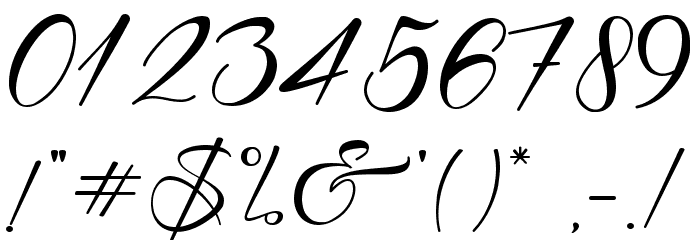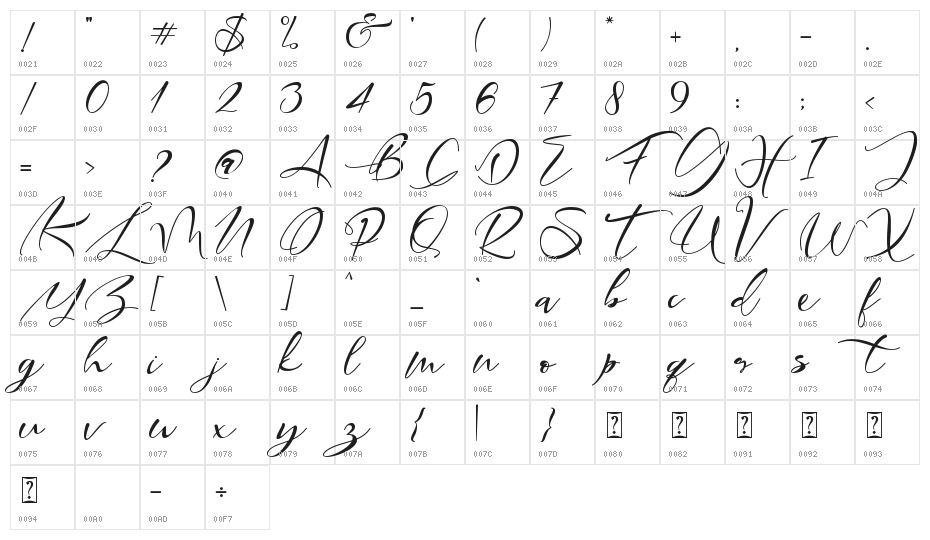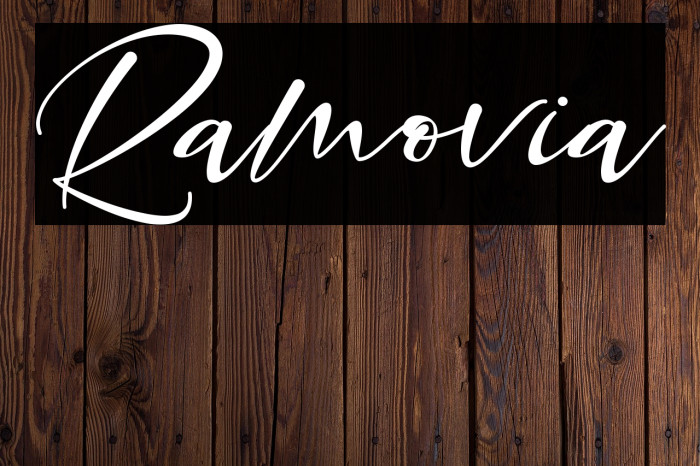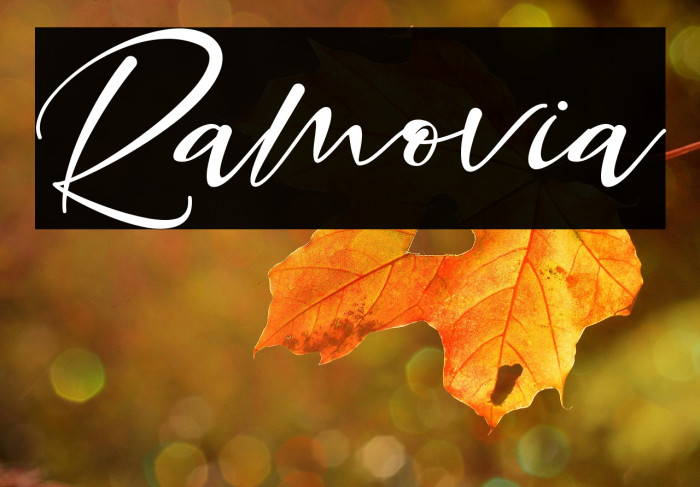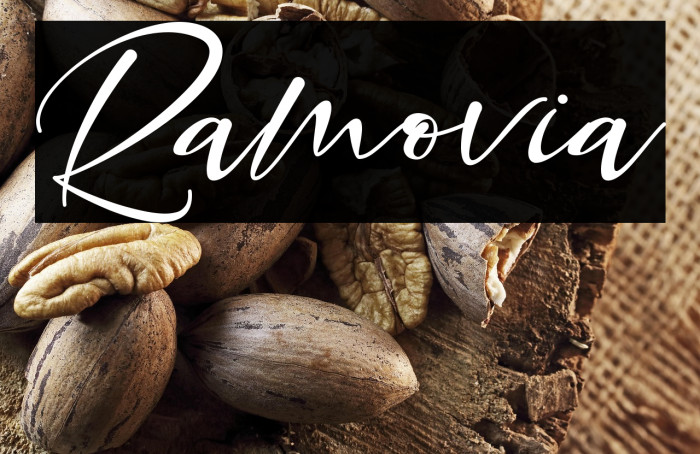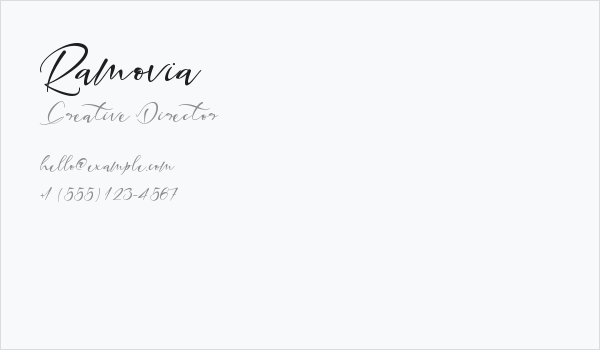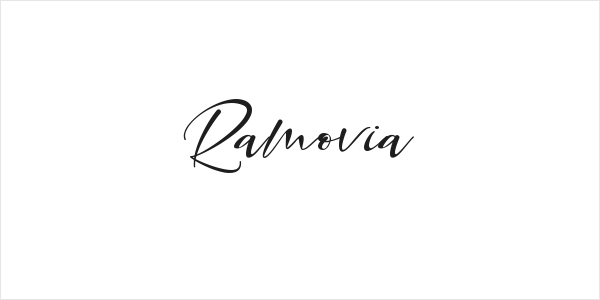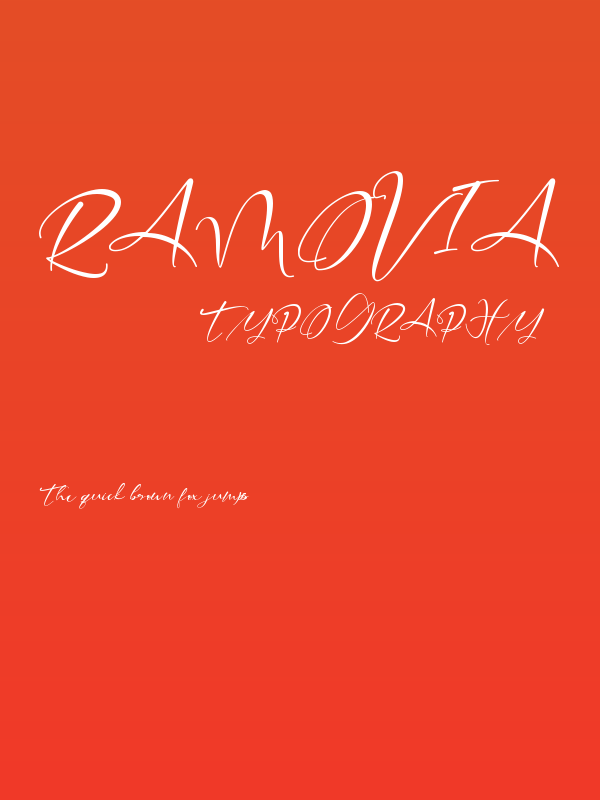
Ramovia Font
Ramovia Description
This elegant script font features fluid, interconnected strokes that mimic the flow of natural handwriting. The uppercase letters are characterized by their graceful loops and swirls, while the lowercase letters maintain a consistent, flowing style that enhances readability. The numerals and special characters are designed with the same attention to detail, ensuring a cohesive look across all text elements. The font's overall aesthetic is sophisticated and artistic, making it ideal for projects that require a touch of elegance and personal flair.
| Overall Style | Elegant, Artistic |
| Use Case | Headlines, Invitations, Branding |
| Proposed Projects | Ideal for wedding invitations, greeting cards, branding projects, and elegant packaging designs. |